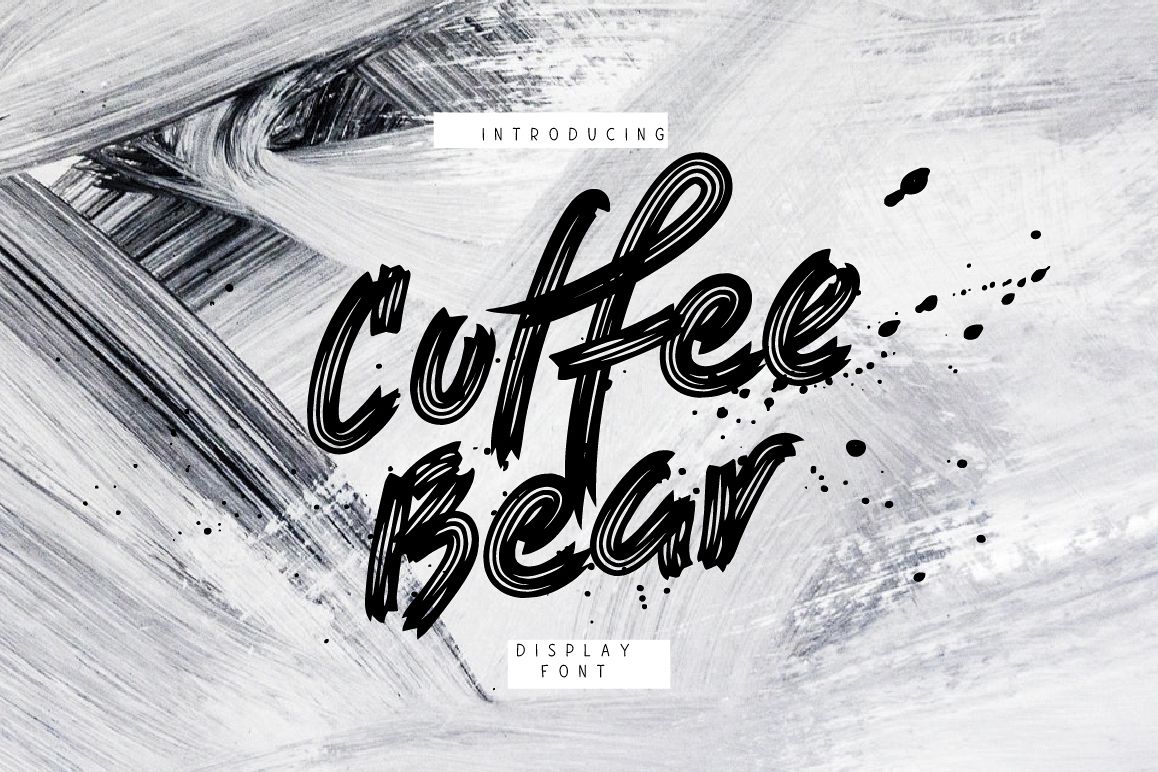
Coffee Bear
CoffeeBear-Regular
Coffee Bear is a hand drawn brush font. It comes with uppercase and lowercase characters, large set of punctuation glyphs, numerals, cyrillic characters, set of alternative latin characters, ligatures and multilingual support. Ideal for logos, product packaging, t-shirt, handwritten quotes and etc.